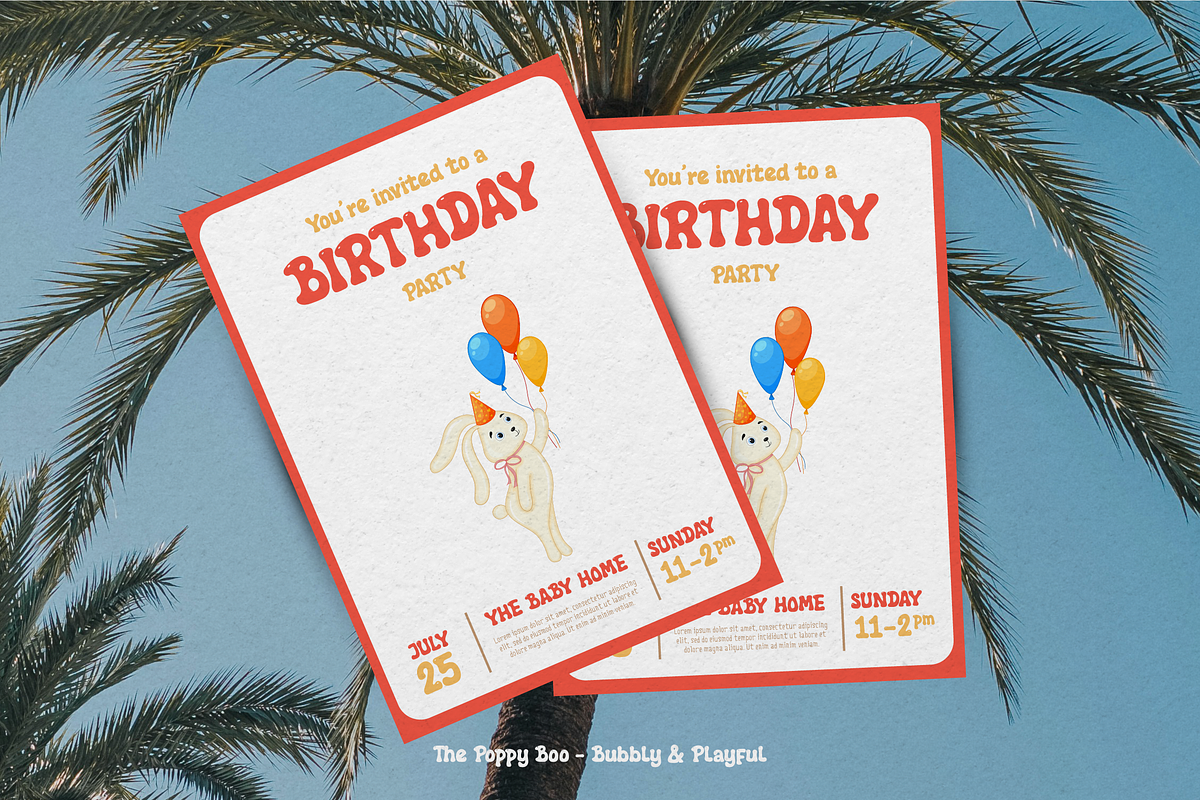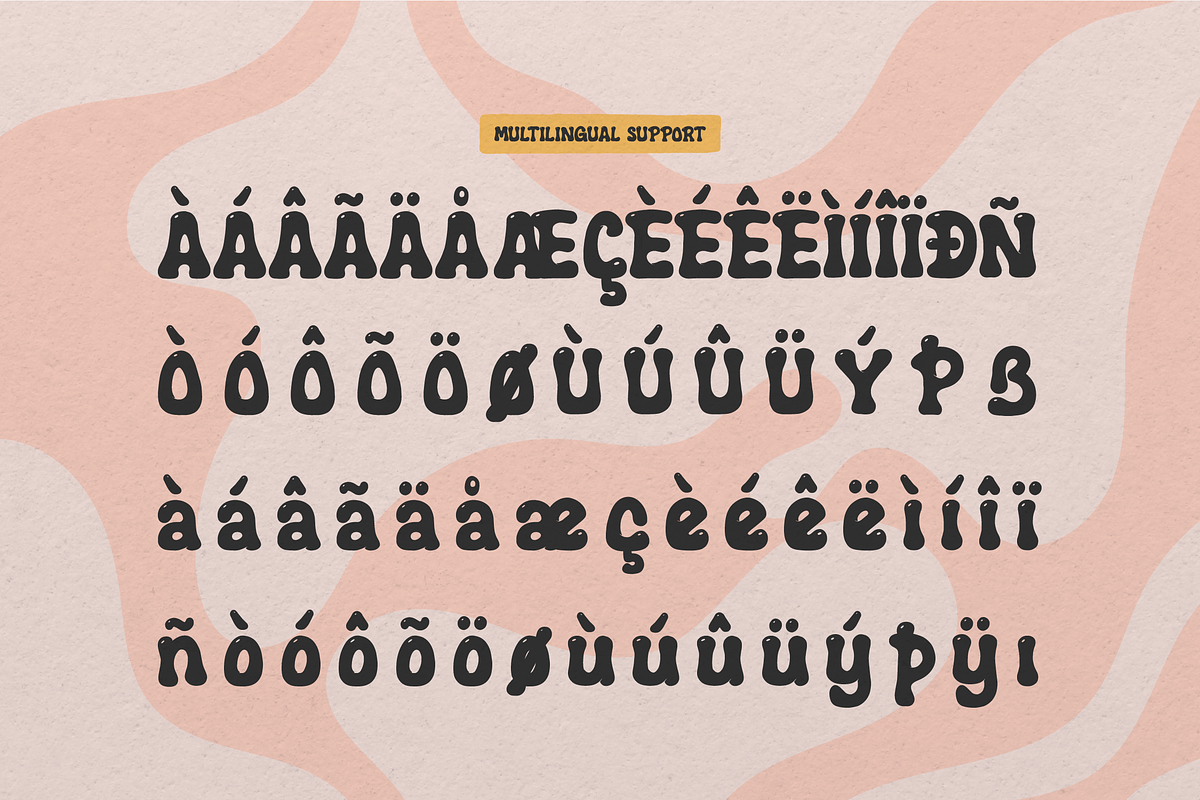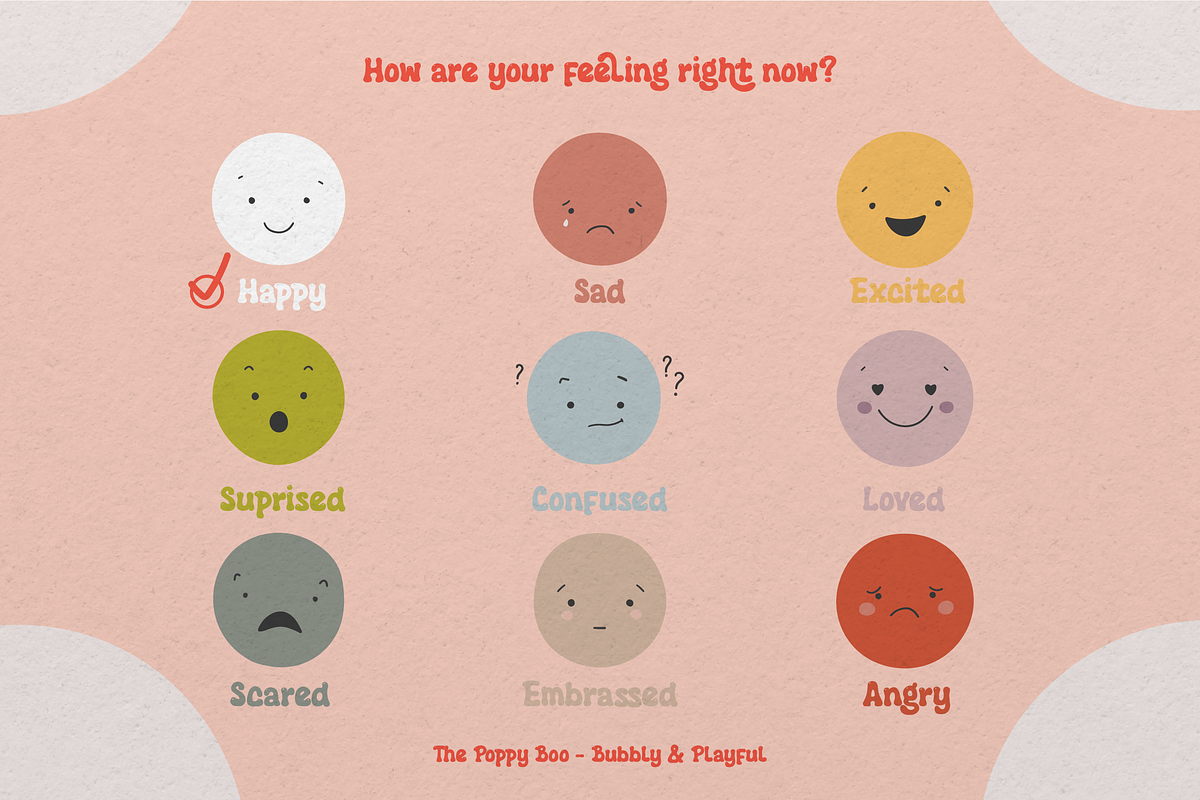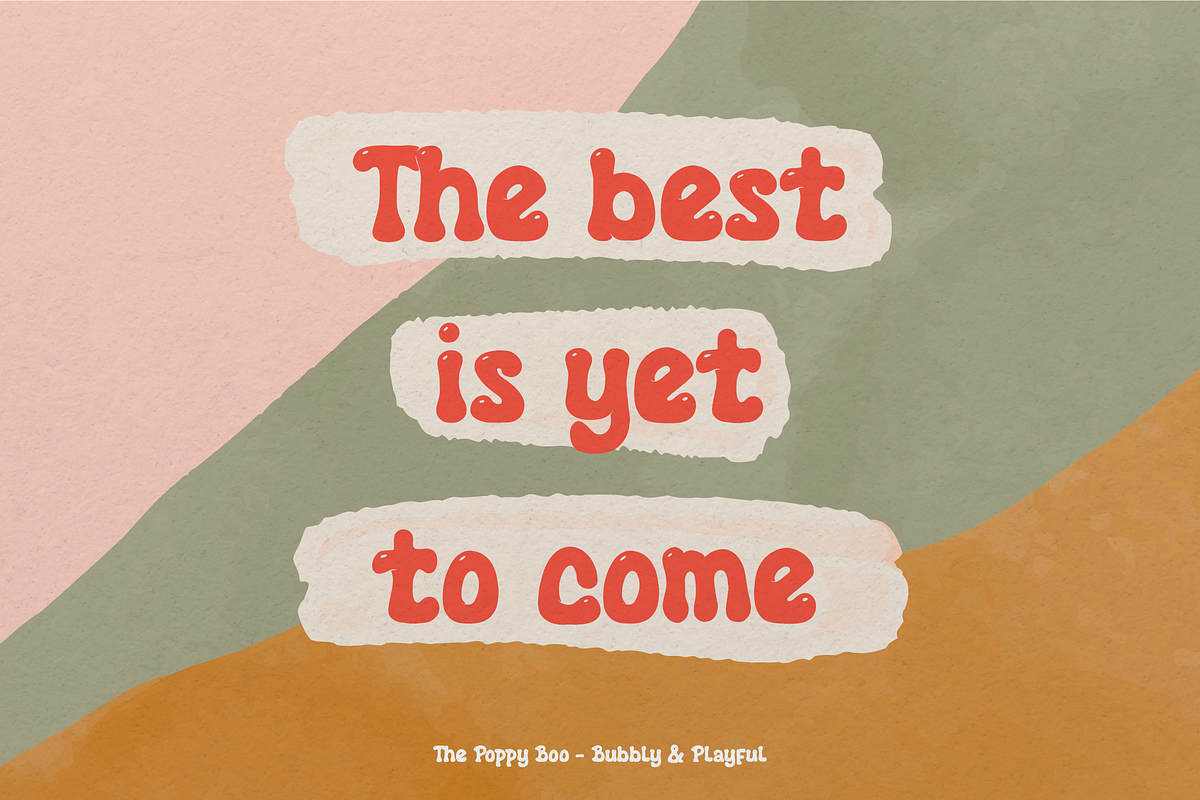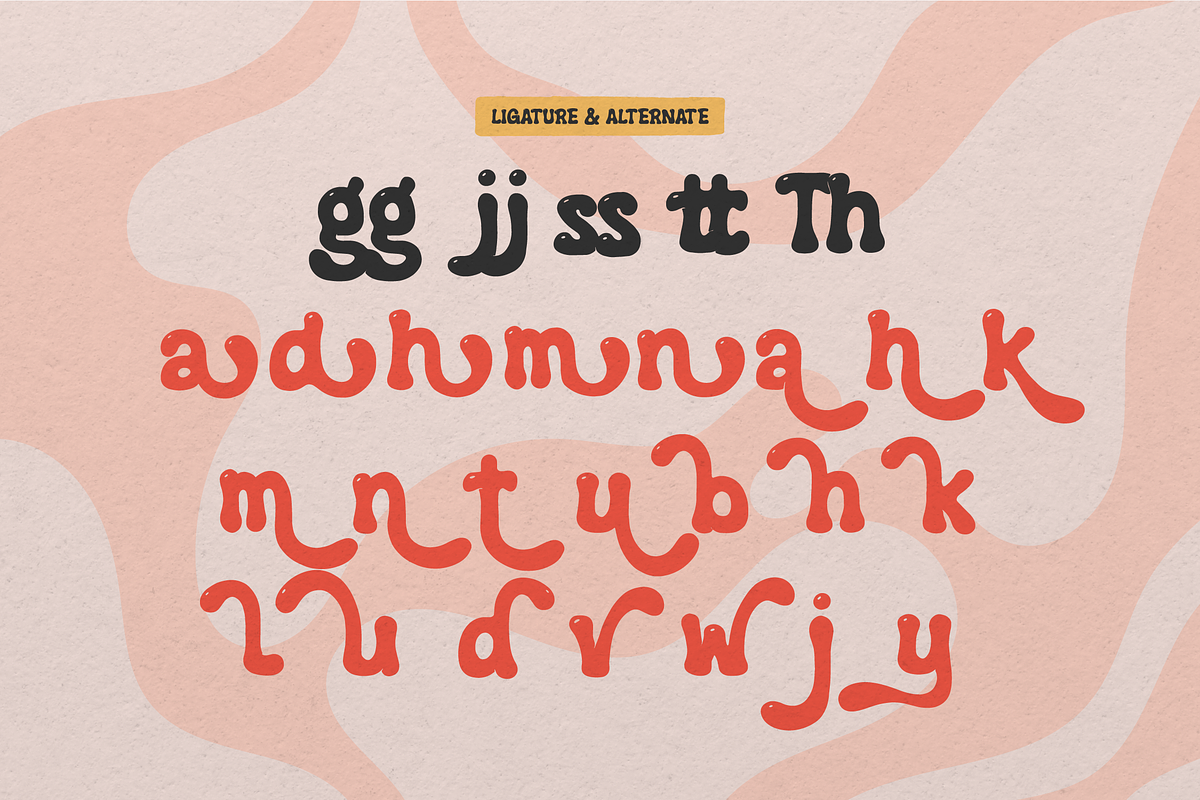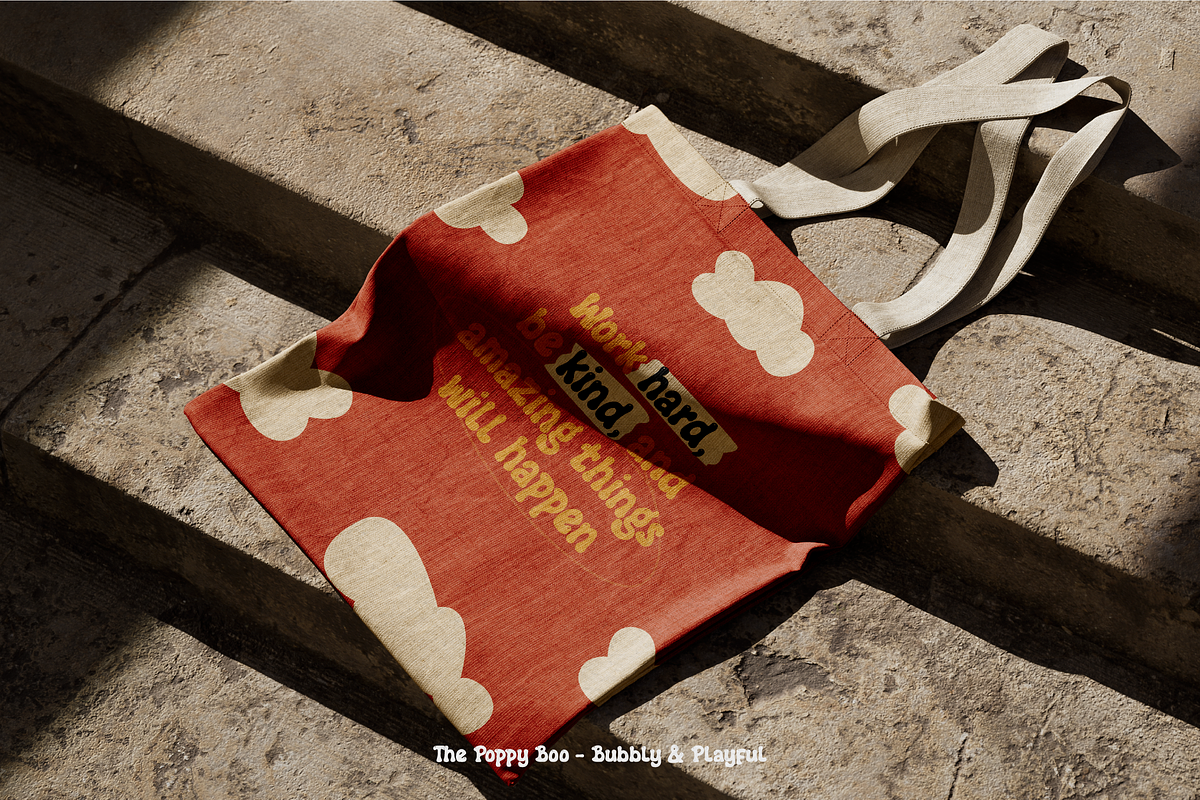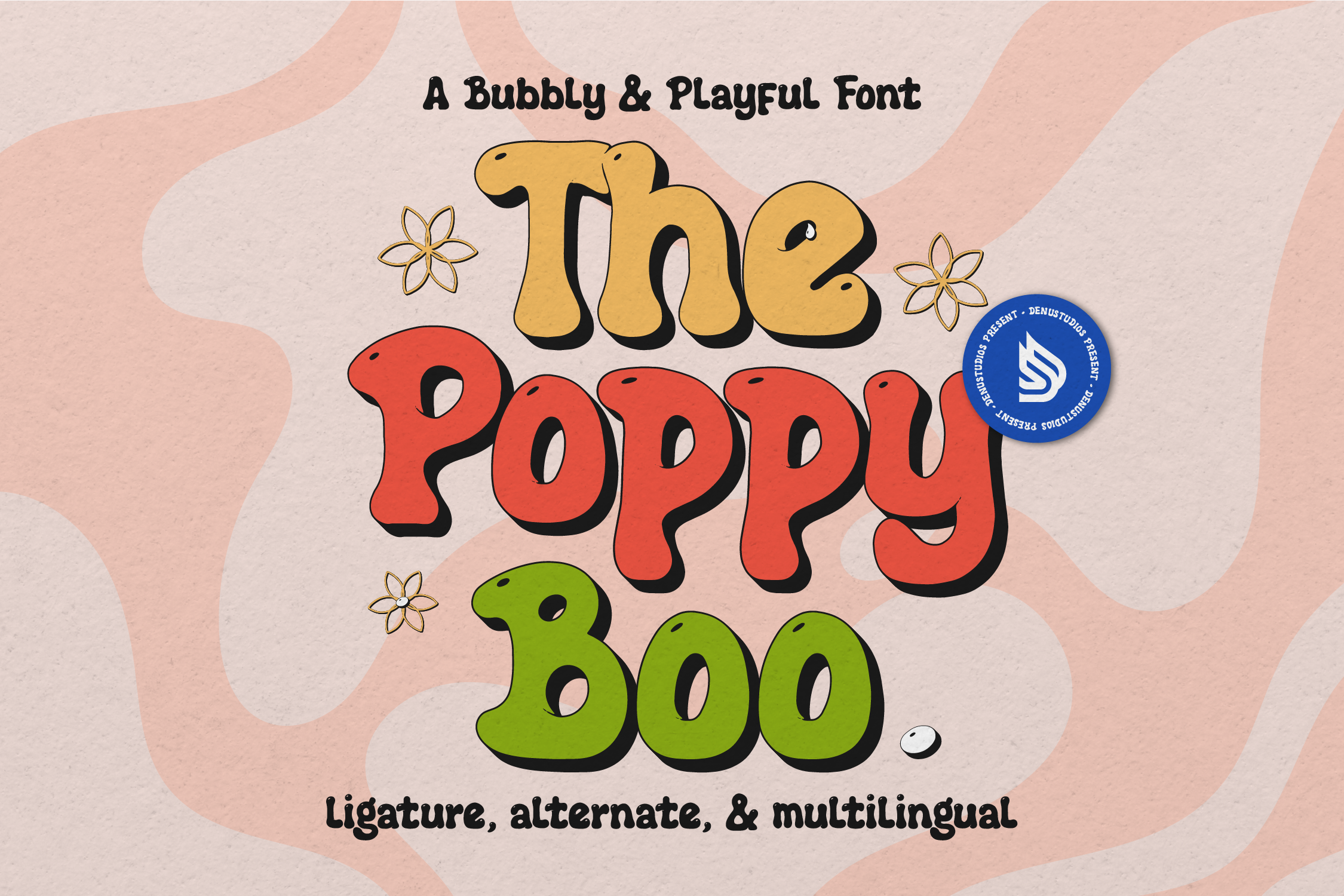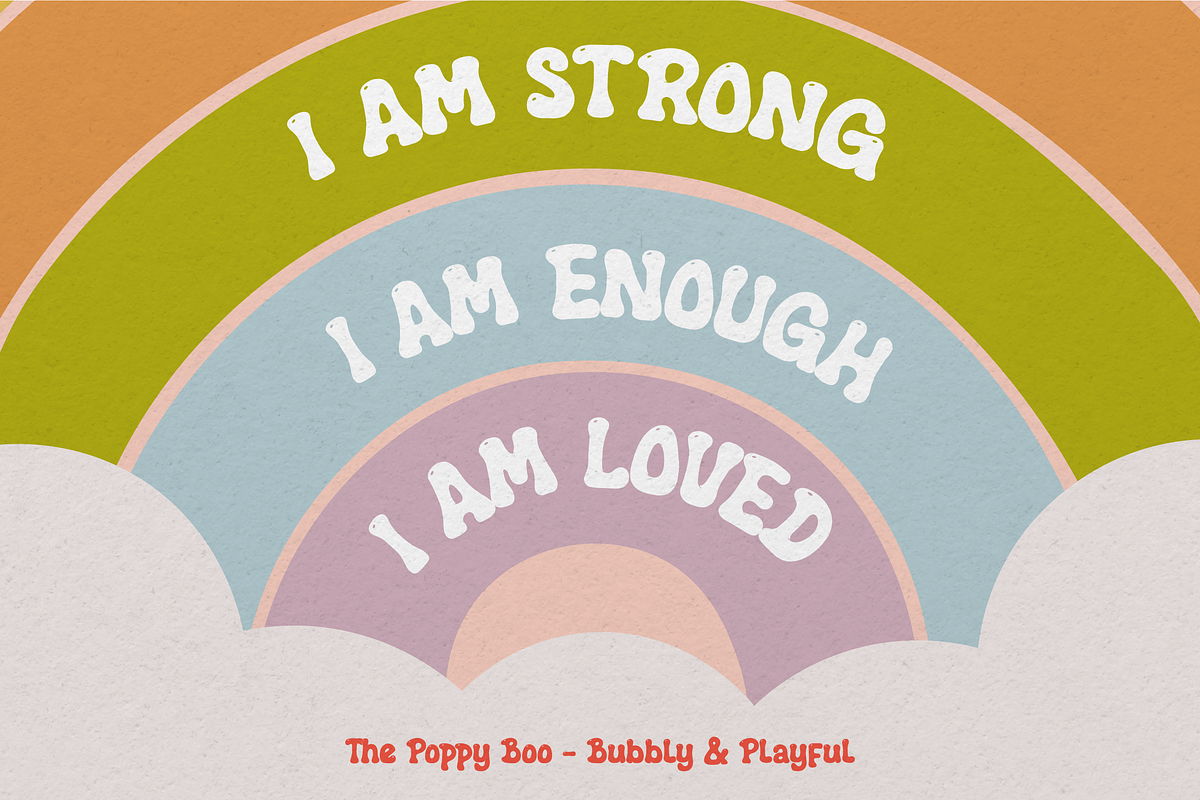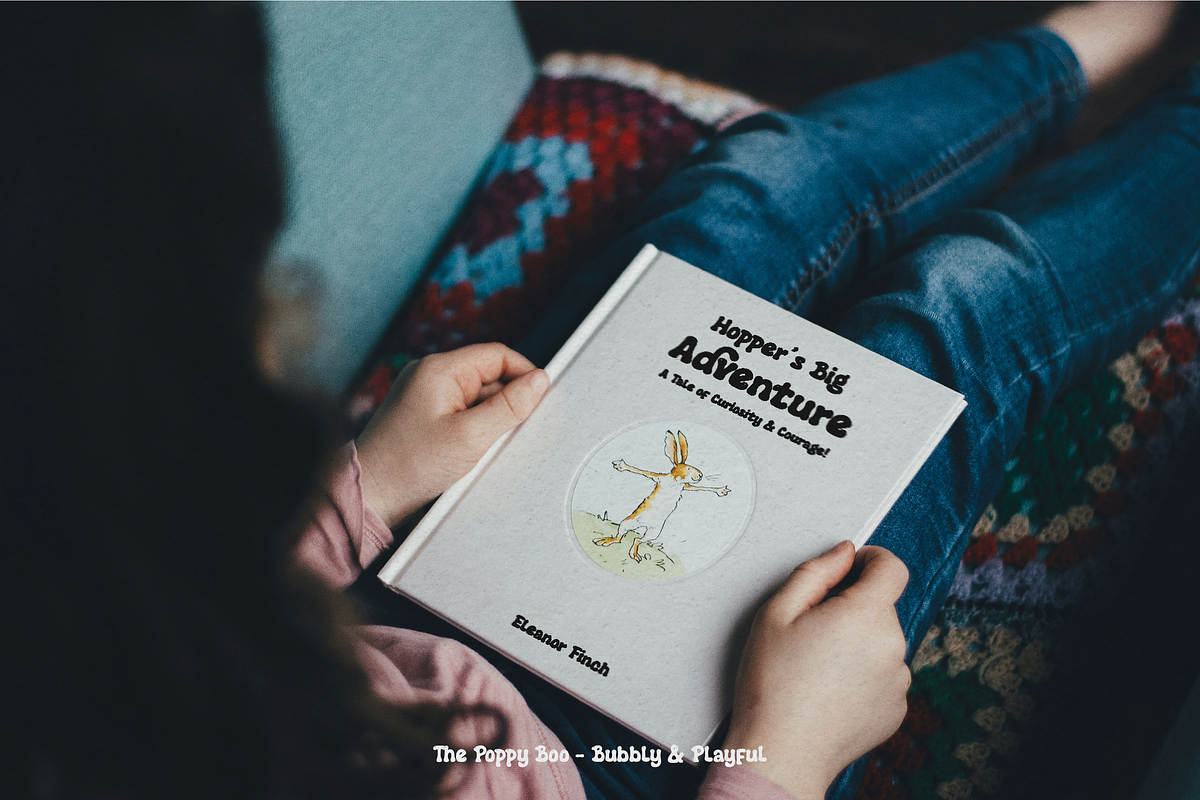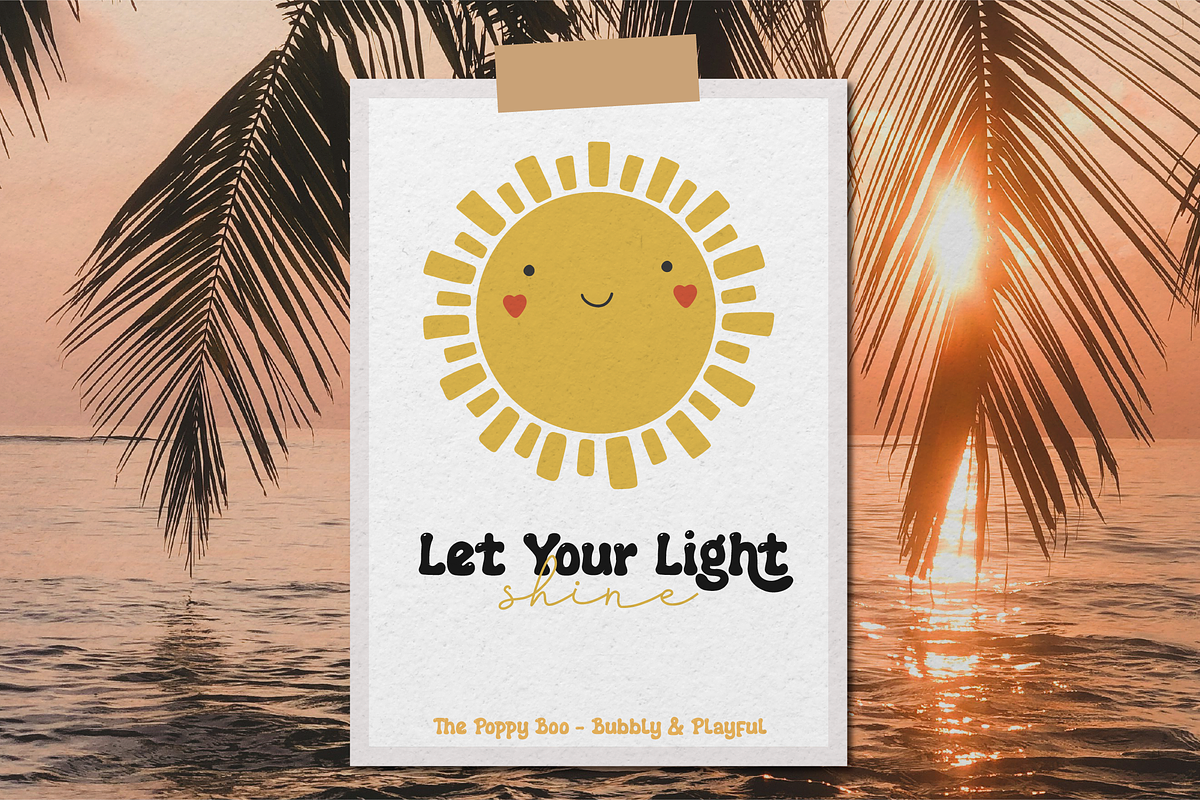
Poppy Boo | Bubbly And Playful Font
Poppy Boo | Bubbly And Playful Font, from Denustudios, suitable for any projects such as: logos, branding projects, homeware designs, product packaging, mugs, quotes, posters, shopping bags, t-shirts, book covers, name card, invitation cards, greeting cards, label, photography, watermark, special events, and all your other lovely projects that need a Bubbly And Playful Font taste.